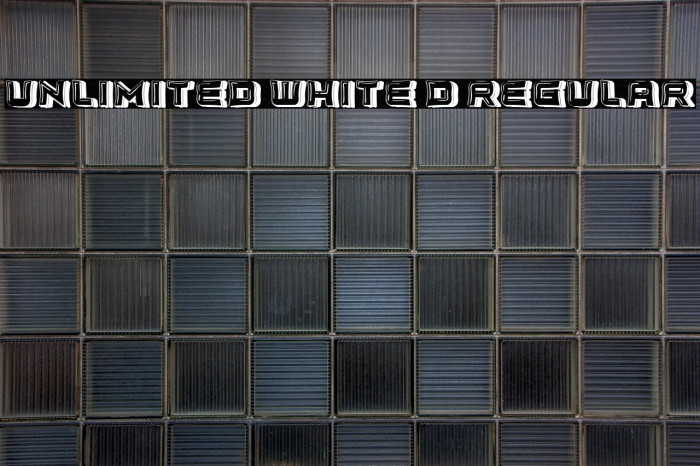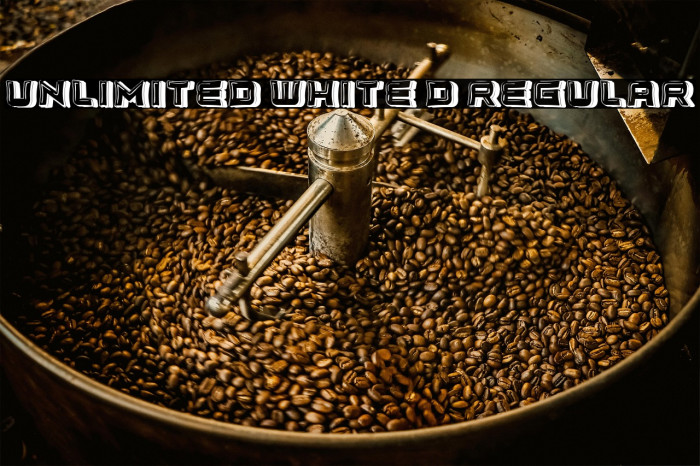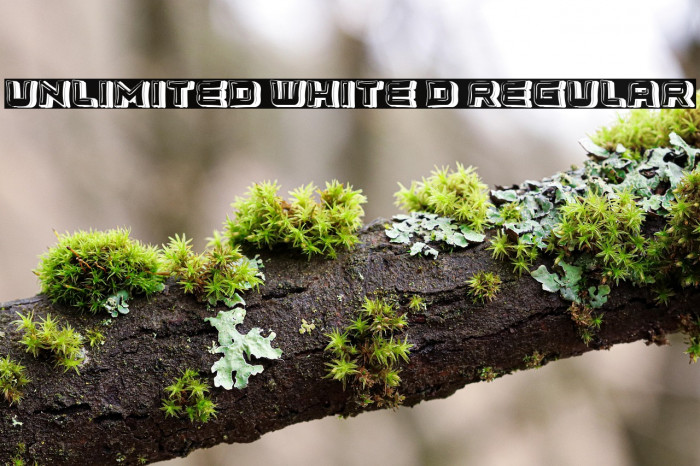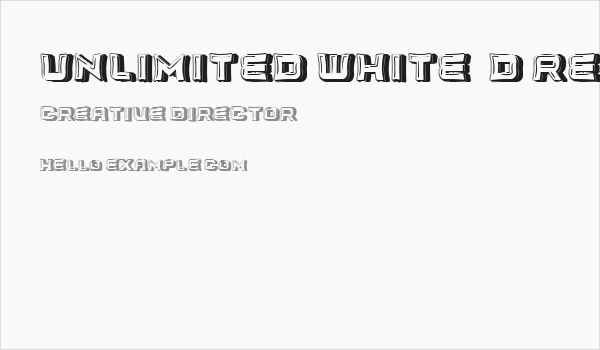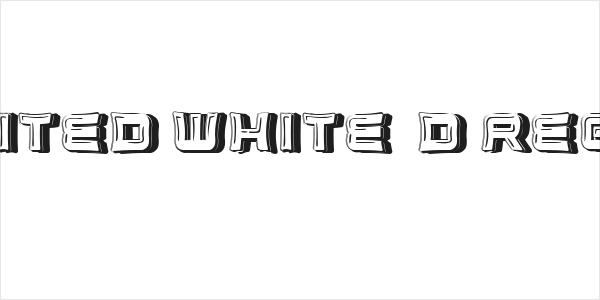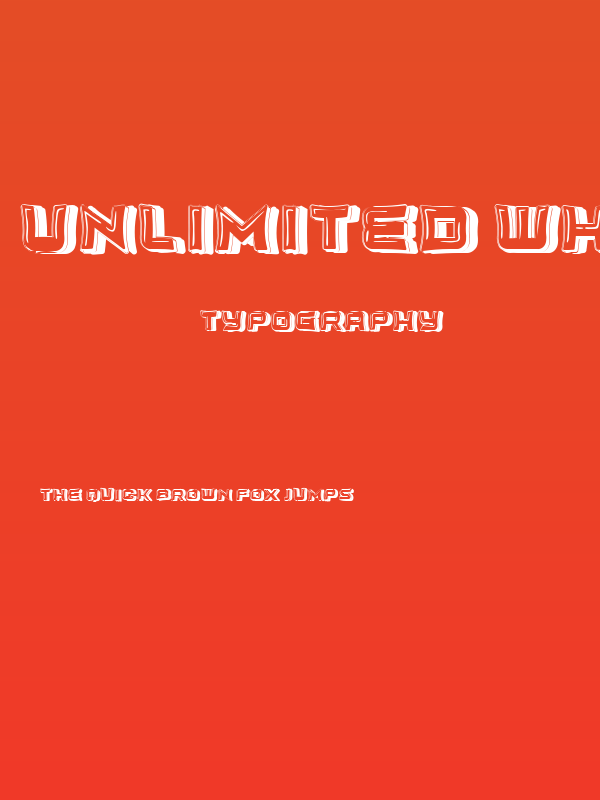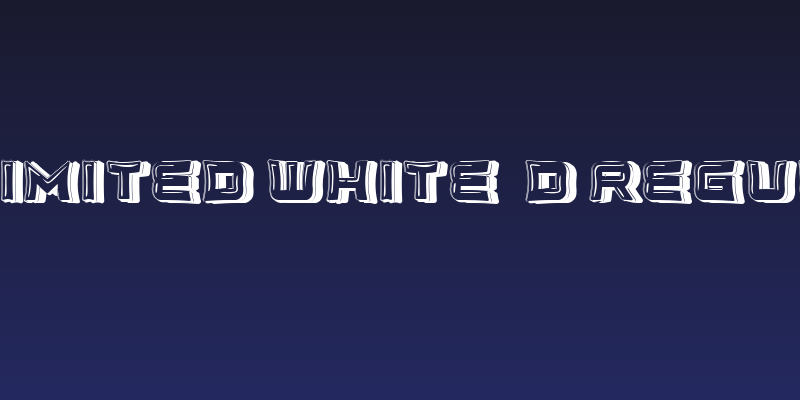
Unlimited White 3D Regular Font
Unlimited White 3D Regular Description
This font features a bold, three-dimensional style with a strong presence. The characters are designed with a shadow effect that gives them a lifted appearance, making them stand out on any background. The edges are sharp and angular, adding a modern and dynamic feel. The uppercase letters are consistent in height and width, providing a uniform look. This font is ideal for creating eye-catching headlines or titles that need to grab attention. Its unique style makes it suitable for projects that require a bold statement or a futuristic touch.
| Proposed Projects | Ideal for headlines, posters, logos, and any design needing a bold, futuristic look. |